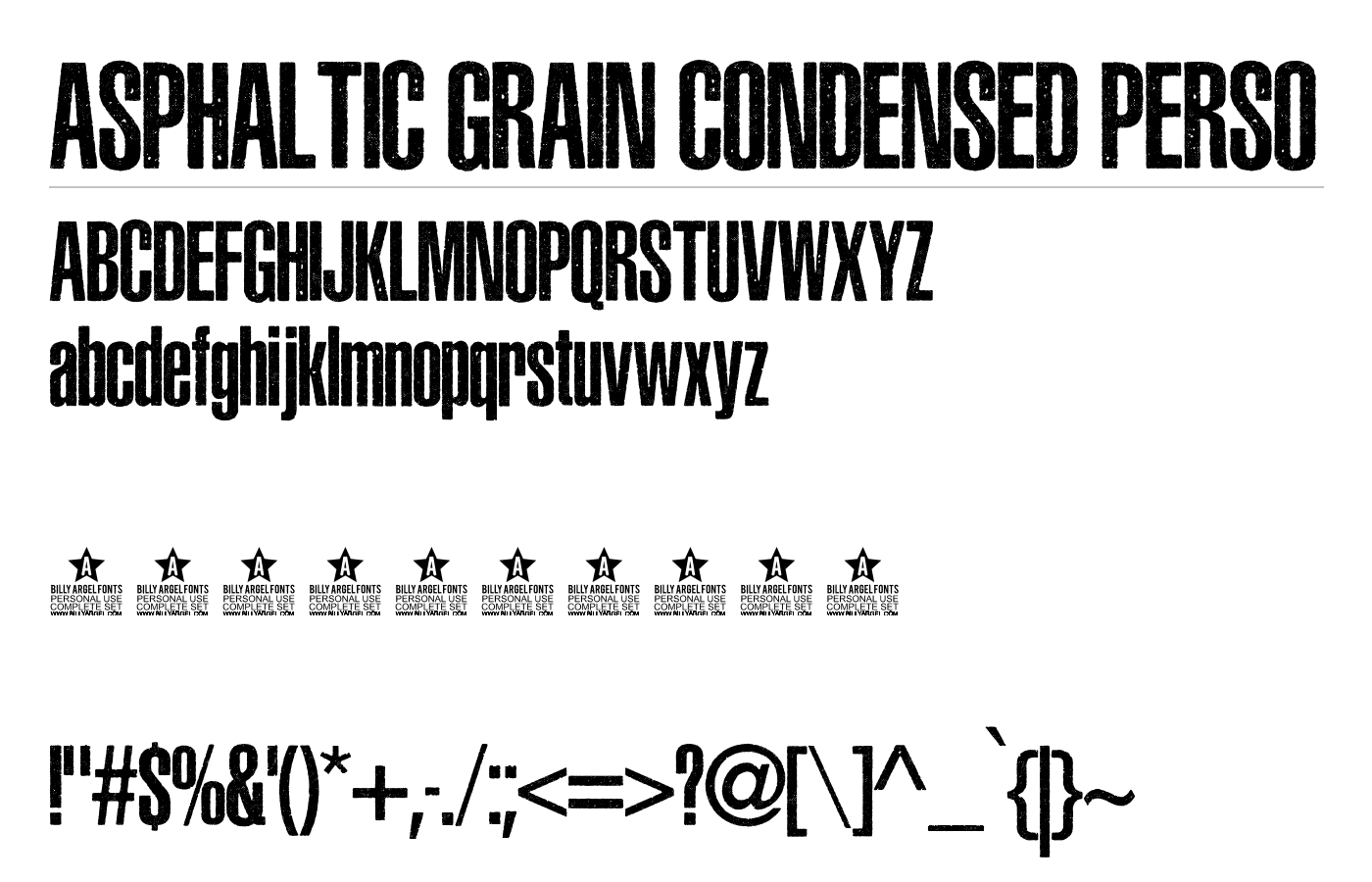
Asphaltic Grain Condensed Perso is a bold, narrow sans serif font with a gritty, textured finish that conveys a strong, industrial vibe. Its tall, condensed letterforms and uniform stroke weight create a striking, urban look perfect for impactful headlines, posters, and branding that demands attention. This font’s rough, hand-printed character adds personality, making it ideal for creative projects seeking a vintage yet raw, street-smart style.
ASPHALTIC GRAIN CONDENSED PERSO Font
About ASPHALTIC GRAIN CONDENSED PERSO Font
| Font family | ASPHALTIC GRAIN CONDENSED PERSO Font |
| Designer | BILLY ARGEL |